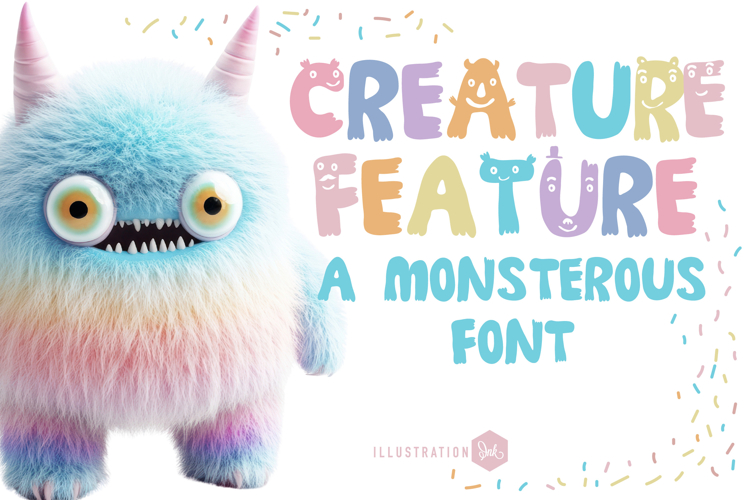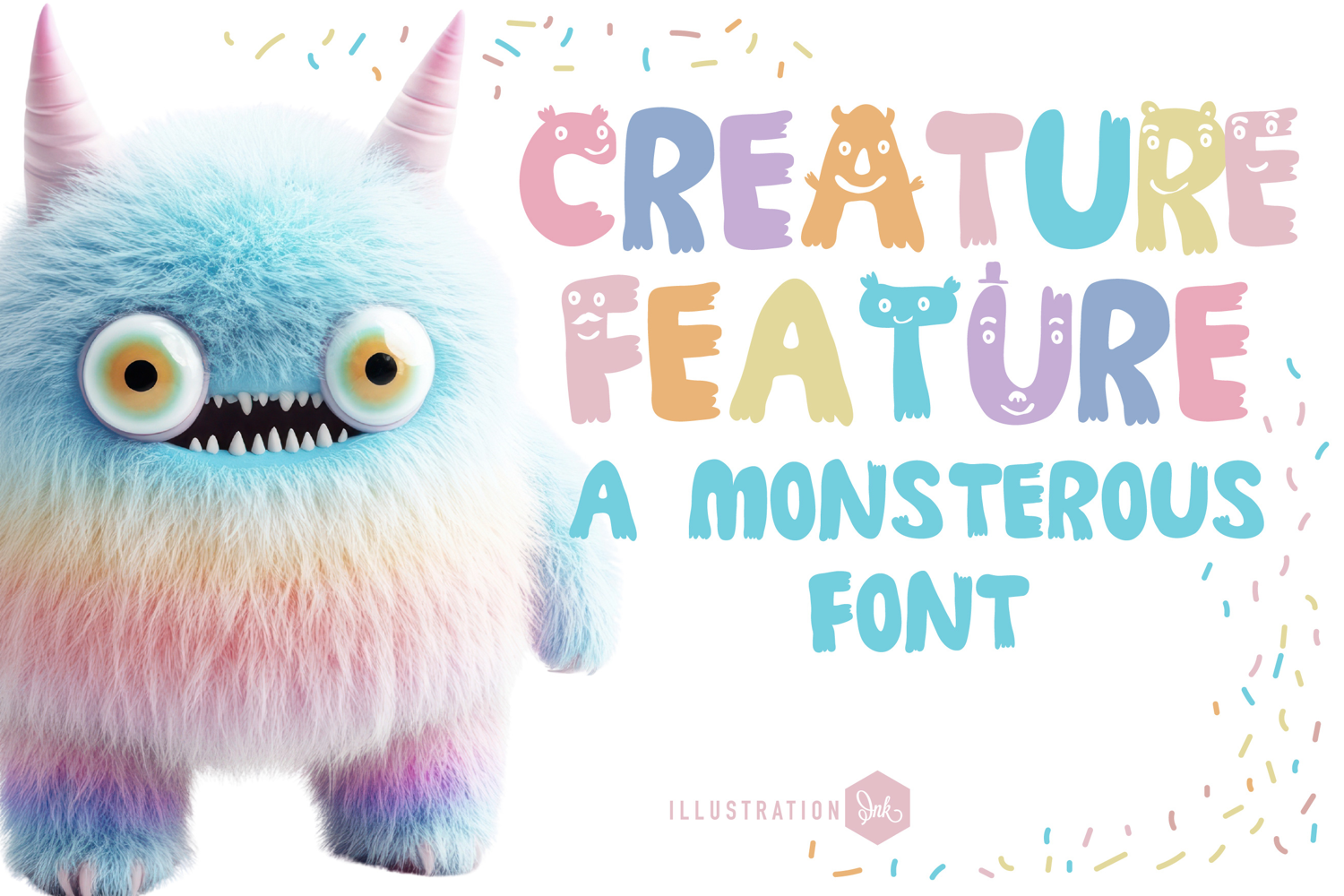
Creature Font Family
This hand-crafted, whimsical font has creature faces on the uppercase and a lowercase without. Some family members sport fur and some are 3d.